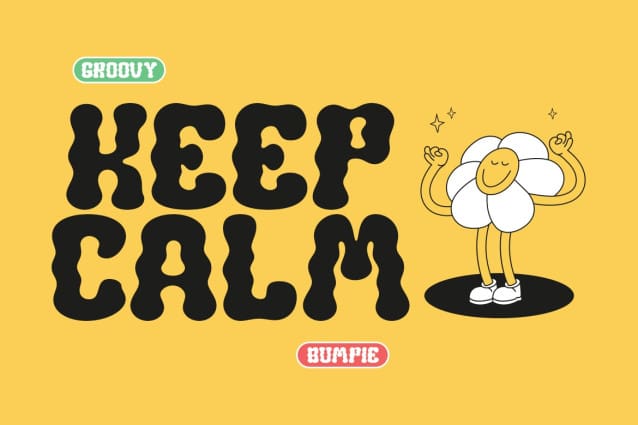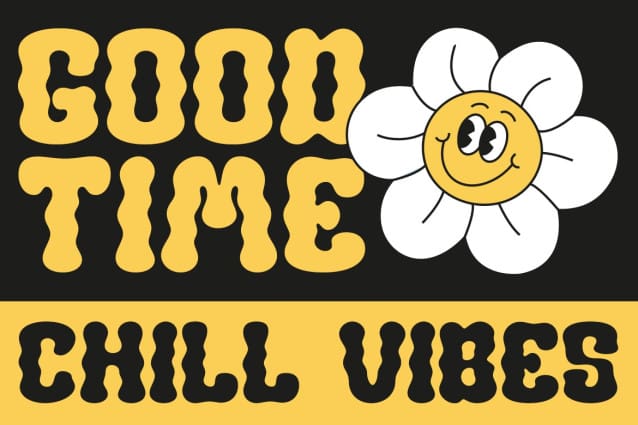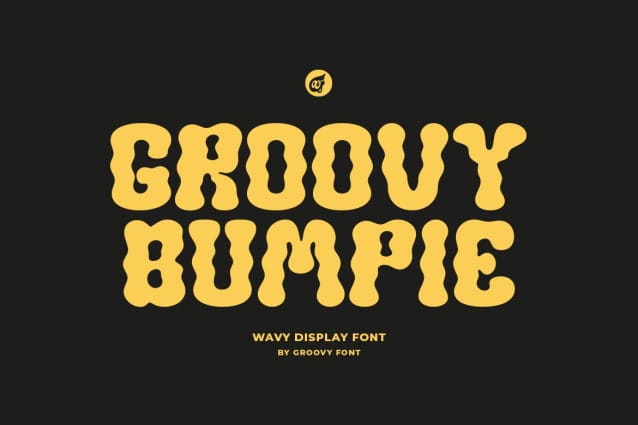
Groovy Bumpie Font
Groovy Bumpie Font is a wavy display font that mimics the undulating motion of waves.
The fluidity and curves of this font evoke a sense of movement and rhythm, making it an ideal choice for projects that seek to convey a dynamic, energetic, or organic aesthetic.
The playful and lively design of Groovy Bumpie adds a distinct and captivating character to any text, creating a visually engaging impact.